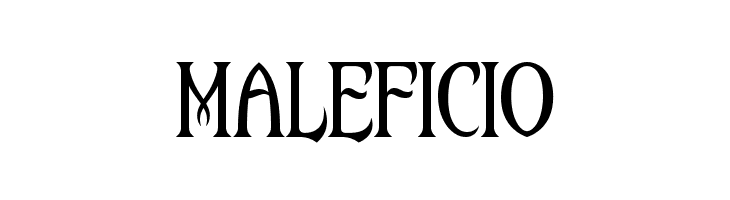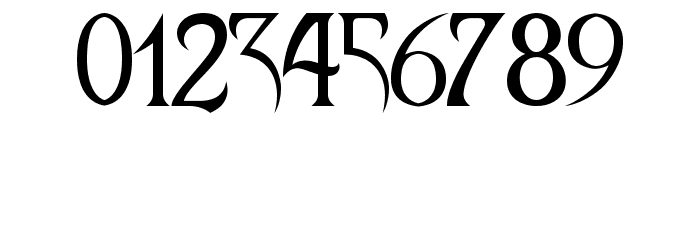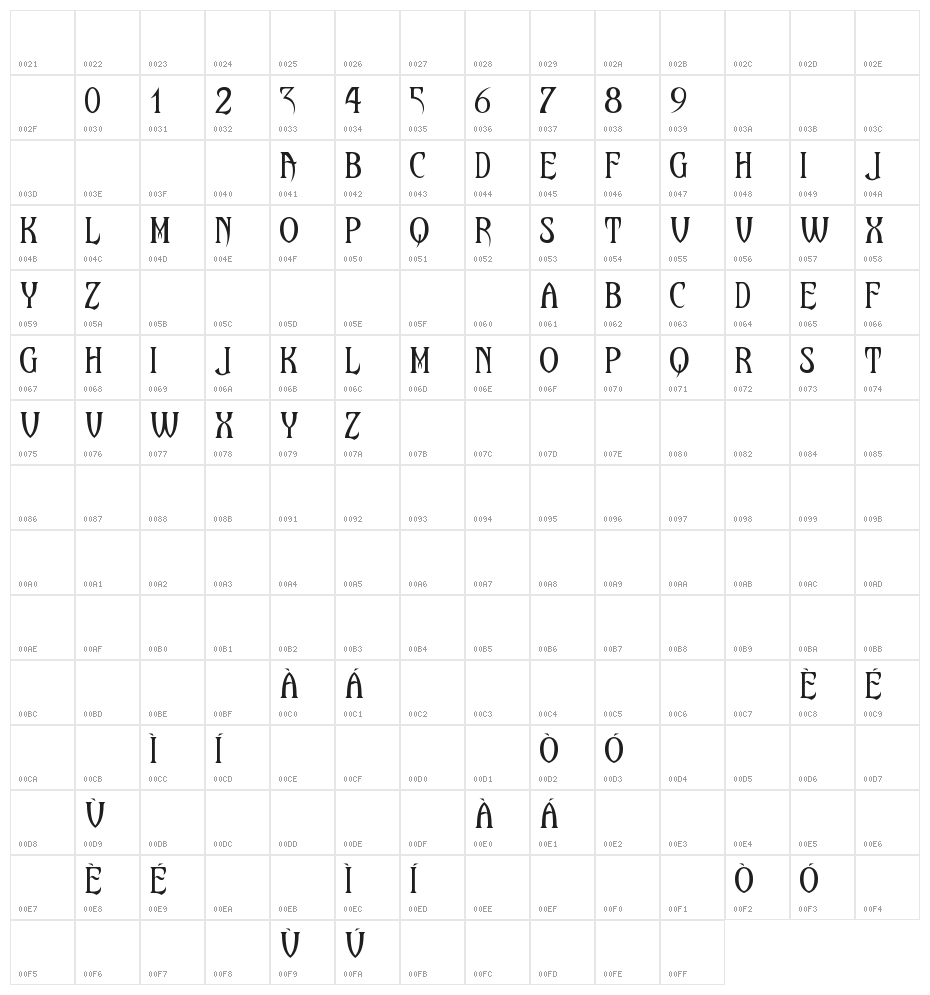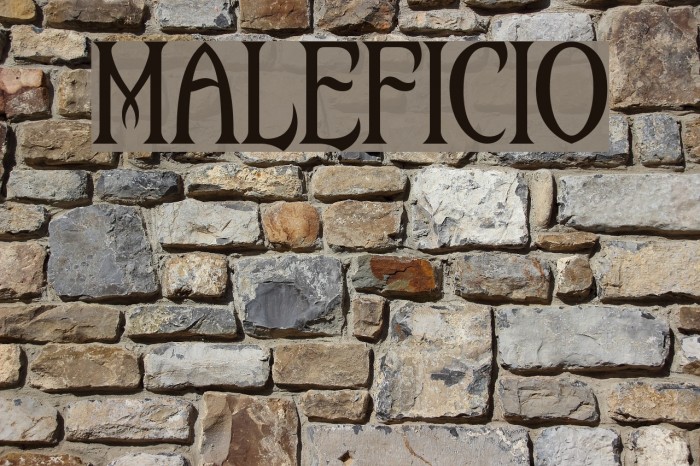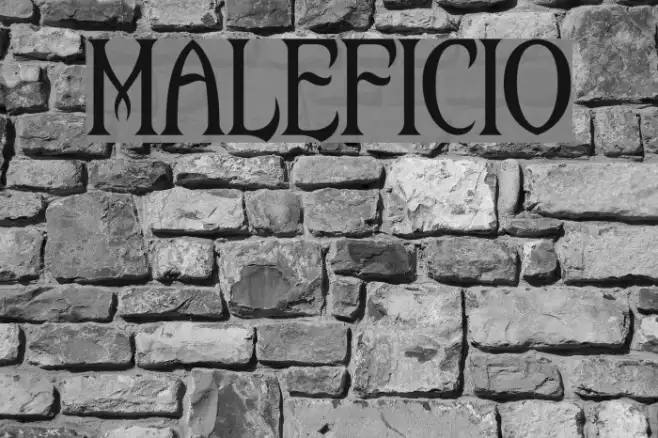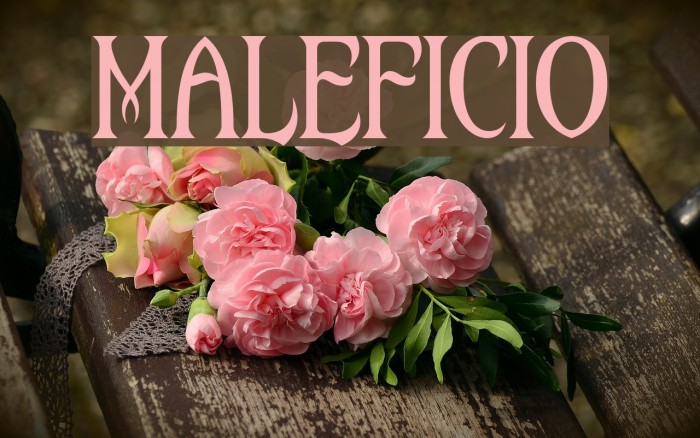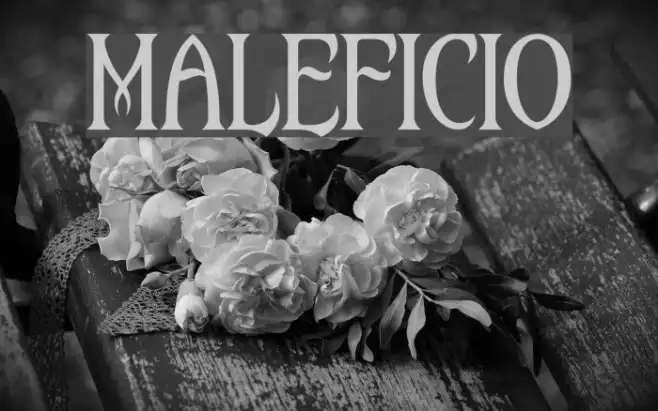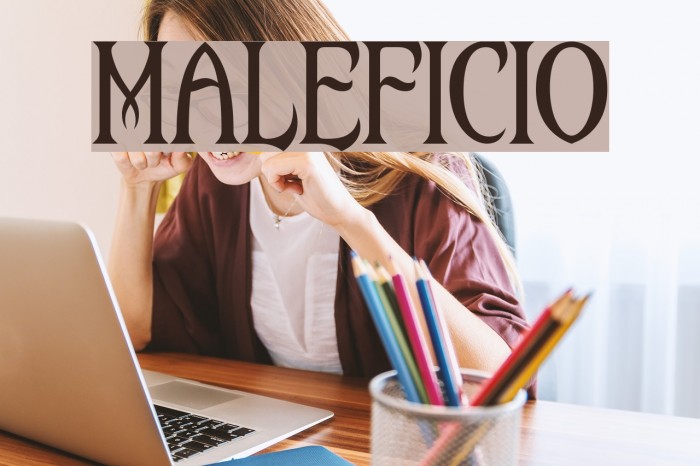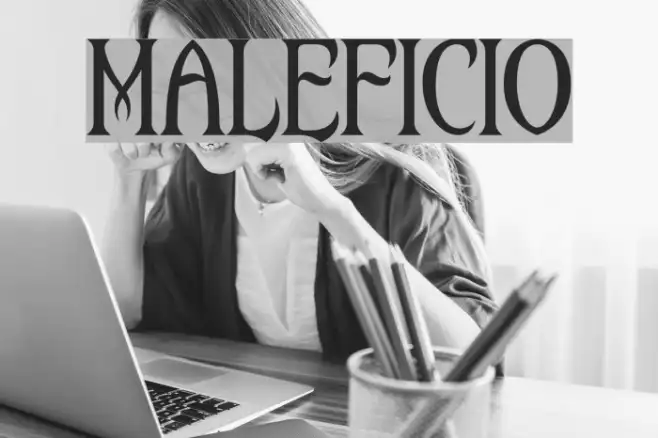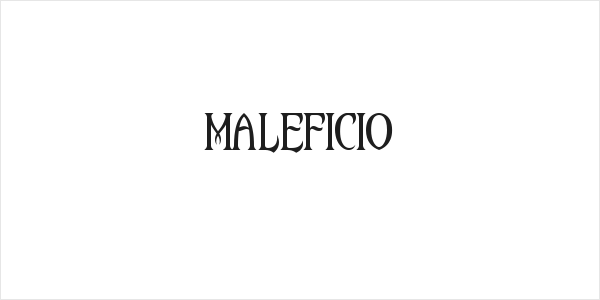
Maleficio Font
Maleficio Description
This font features a dramatic and gothic style with sharp, pointed serifs and an overall dark, mysterious aesthetic. The uppercase letters are tall and slender, with unique embellishments that give them a slightly menacing appearance. The lowercase letters maintain the same sharpness, creating a cohesive look throughout. Numbers are equally stylized, with curved and pointed elements that enhance the font's distinctive character. Special characters are designed to match the overall theme, making this font ideal for projects requiring a bold and striking visual impact.
| Overall Style | Gothic, Dramatic |
| Use Case | Headlines, Posters, Logos |
| Proposed Projects | Ideal for horror-themed posters, gothic novel covers, Halloween invitations, and fantasy game titles. |